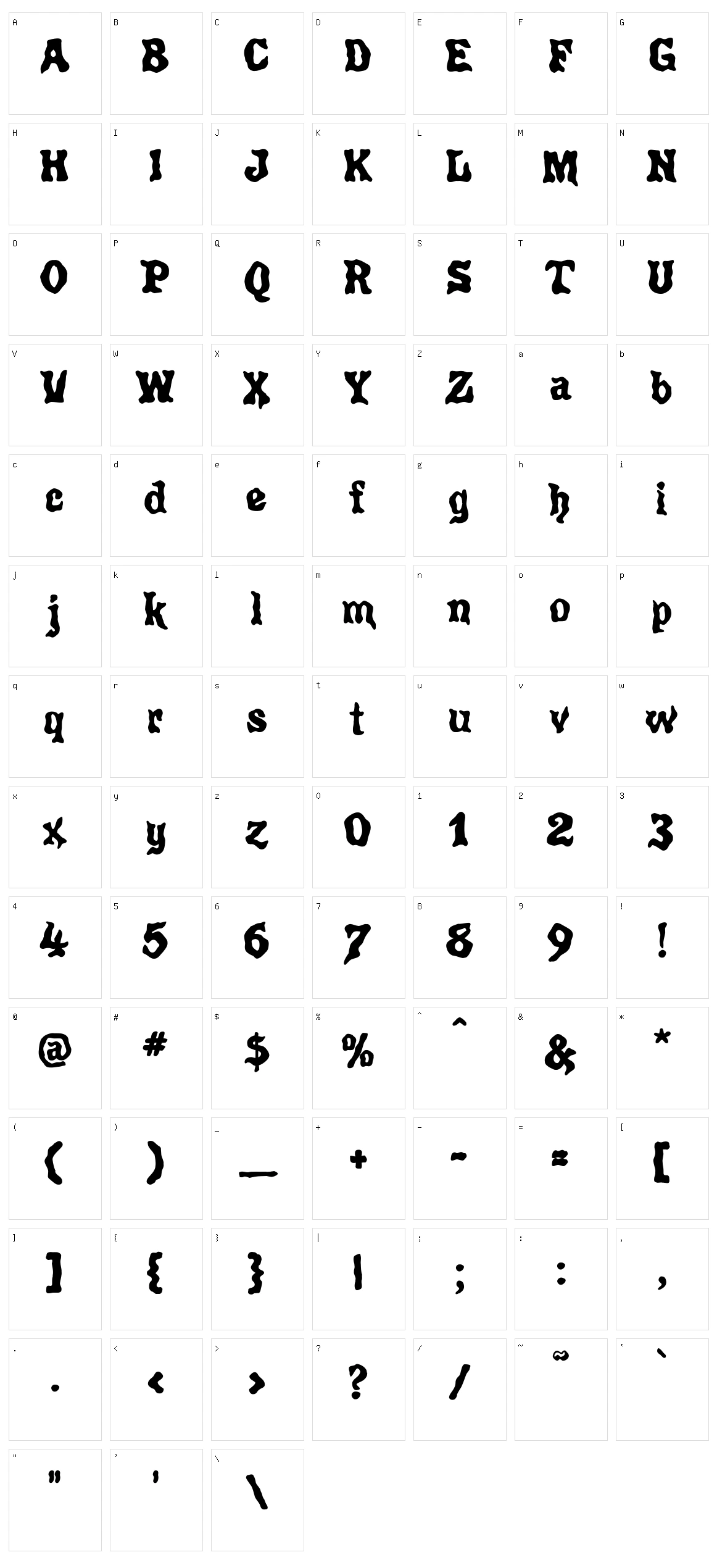
I guess Hallooween came early this year. This font was made because of popular demand for a horror comic font.
I used to love Batman. Then Comicraft just HAD to come along and spoil everything for everyone. Way to kill my hero and forve me to invent a new one. Well, at least I figured out a way to make him speak. Now all I need to do is figure out what he looks like... as soon as I finish dealing with the mazes of everybody else's heroes...